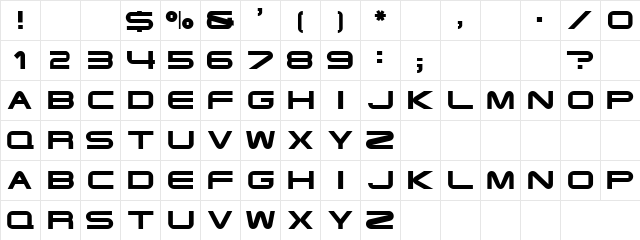
Crossly Bonded Regular
Design Context for Crossly Bonded Typeface
Crossly Bonded offers clean, dependable letterforms without strong stylistic allegiance, making it a practical choice for designers who need flexibility.